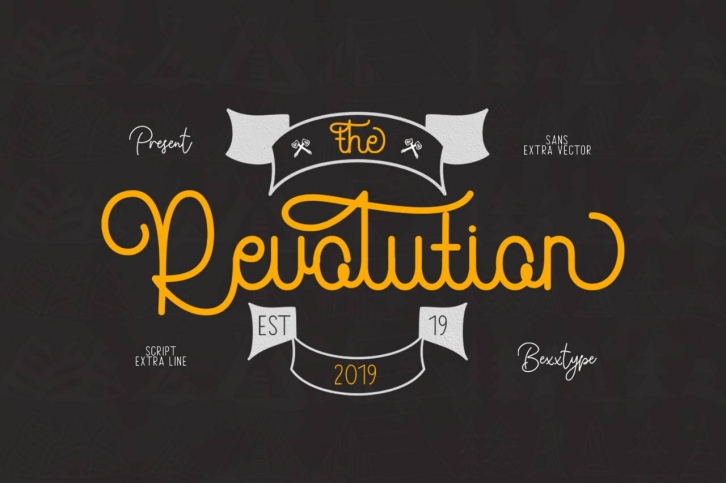
The Revolution is a great font that was designed by Bexxtype. Imagine the amount of combinations you can create using this font! The archive is 4.81 MB and it was released on November 13, 2019. The Revolution looks beautiful on wedding invitations, greeting cards, logos, posters, labels, t-shirt designs, logos, business cards and is perfect for use in ink or watercolor works, fashion, magazines, packaging and food menus, children's books and more!